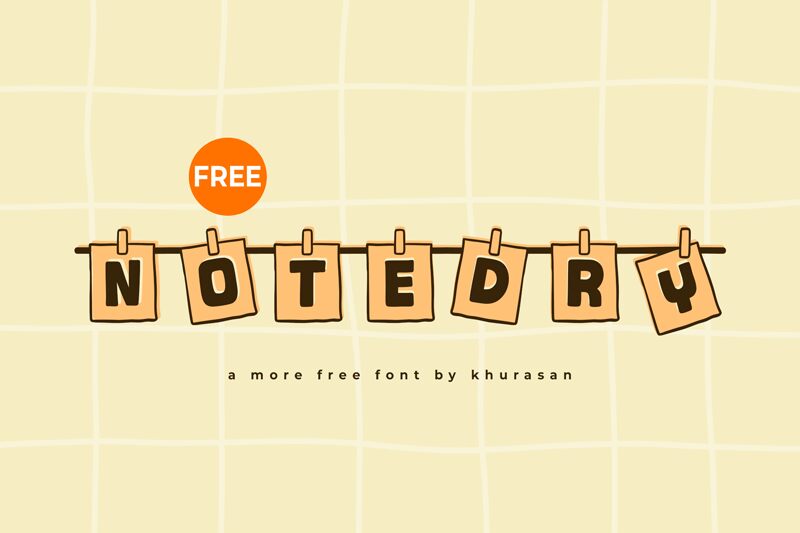
Notedry font family by Khurasan is a free decorative font family featuring a distinct aesthetic. This font stands out through its creative and playful side, contributing to each letter's unique and remarkable appearance. This cartoonish artistic aspect allows it to appear informal and quirky yet endlessly charming.
Notedry font styles are ideal for projects where originality and freshness are essential. It is a perfect choice for children’s books, educational videos, magazines, websites for kids, and logos for children’s brands and businesses. It would also work well in poster designs, packaging, labels, invitations, and stationery.